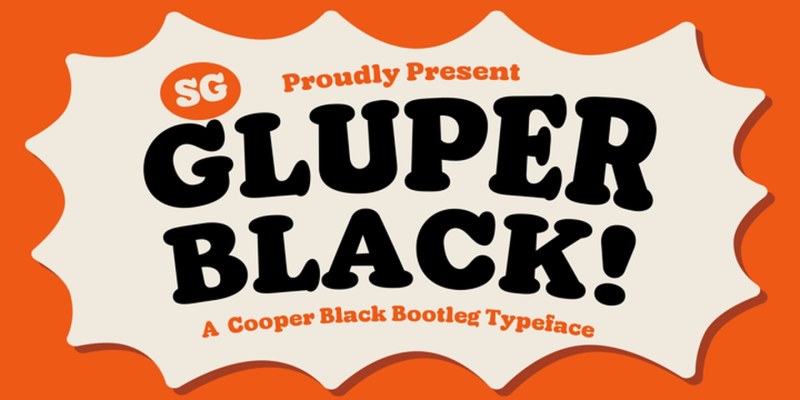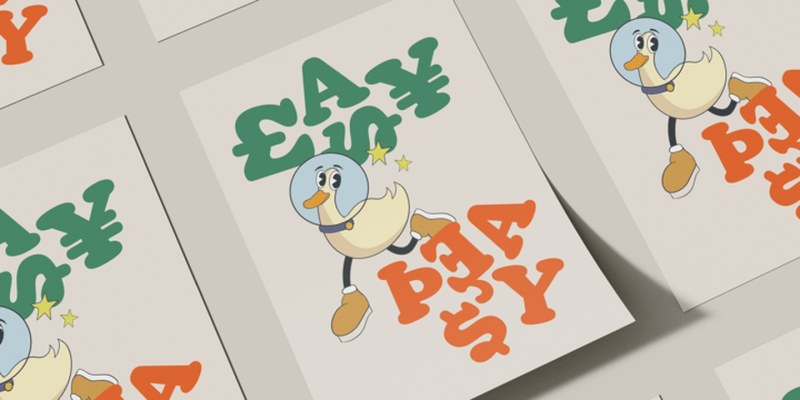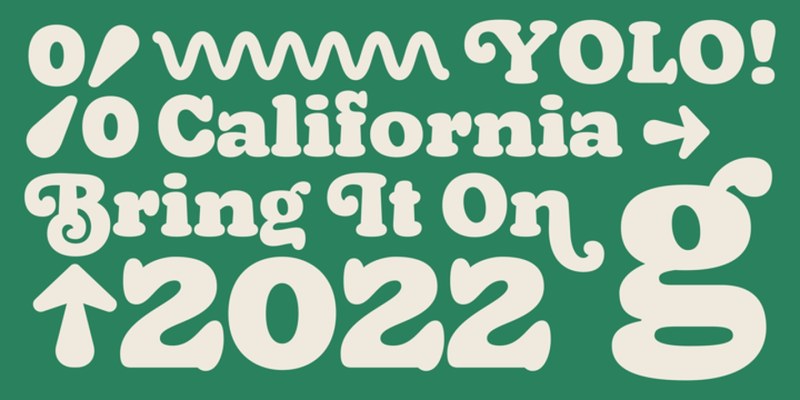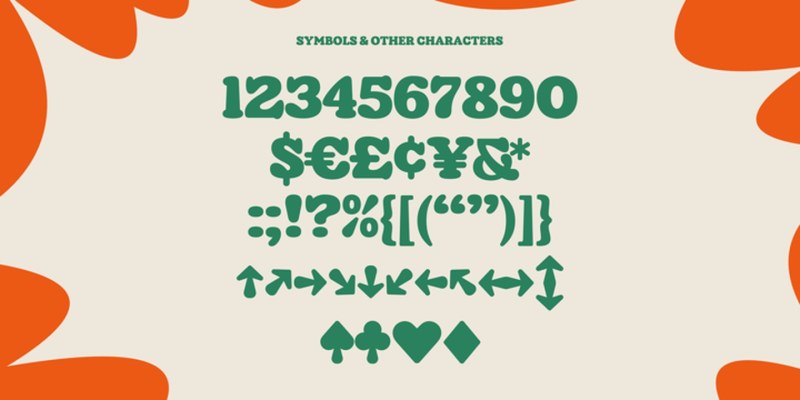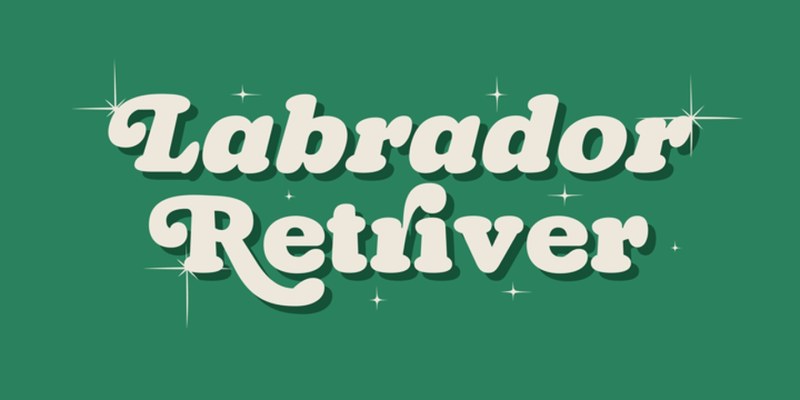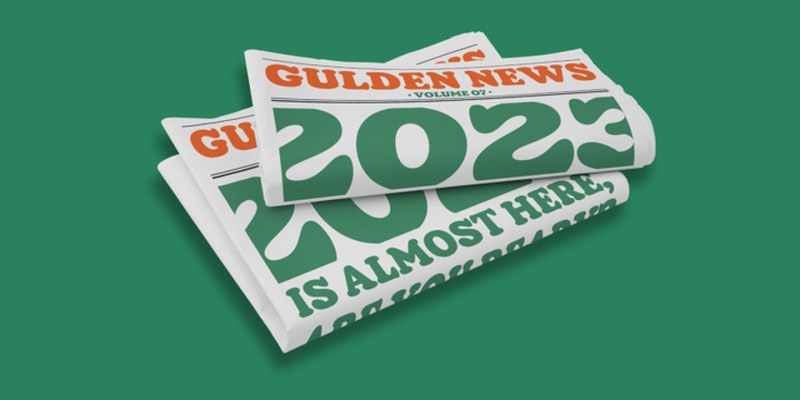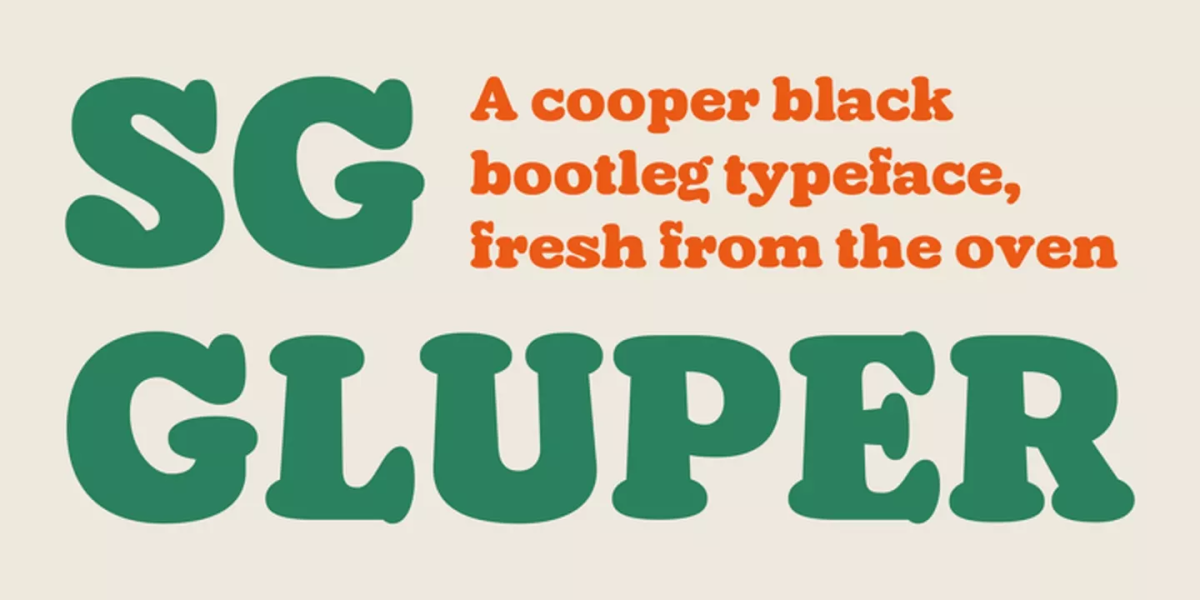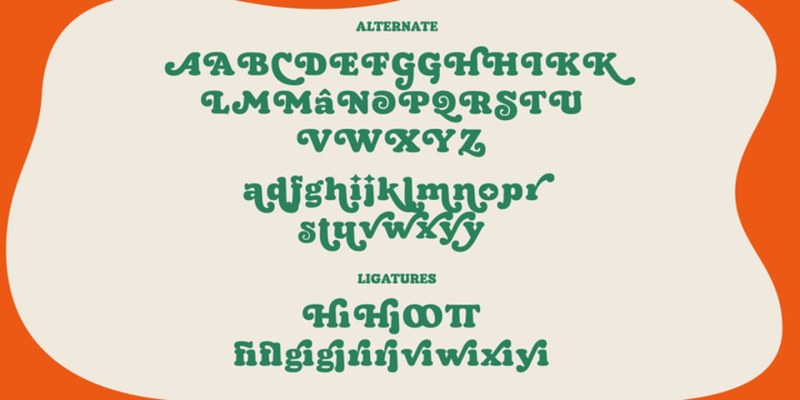
SG Gluper Font
SG Gluper – inspired by the OG Cooper Black typeface that is intended for display use. This retro serif font combination can handle many typographic uses but is best sui…
SG Gluper – inspired by the OG Cooper Black typeface that is intended for display use. This retro serif font combination can handle many typographic uses but is best suited for headlines, branding, and logos. It has a multilingual feature that supports more than 200 languages. Gluper also has an alternate version including swashes and ligatures.
Where SG Gluper Font works best
SG Gluper Font is built for size: event posters, hero headlines and billboard-style layouts.
High contrast display type like SG Gluper Font reads instantly in thumbnails and motion graphics.
What is SG Gluper Font good for?